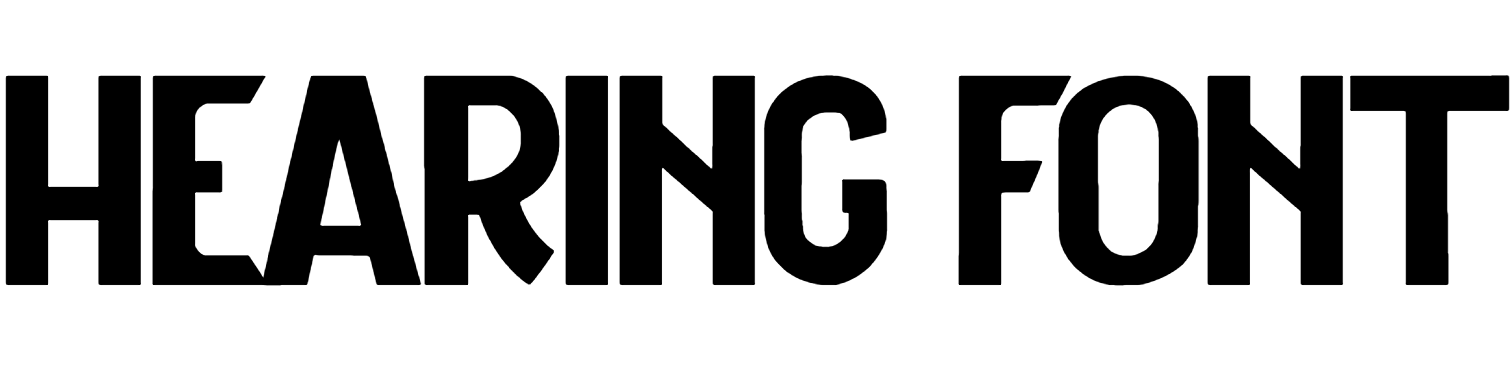
Hearing
Hearing is a sans serif font designed by Arendxstudio (2021). Simple, open letter shapes keep it easy to read at almost any size, from app buttons to big headlines. It's a free download, and you can try it with your own text in the preview above first.
- Designer: Arendxstudio
- Glyphs: 230
- Extra characters: 79 copy-and-paste alternates (Private Use Area)
What You Can Type With Hearing
Hearing covers the full alphabet in upper and lowercase, plus all ten numbers, so you can set names, dates and prices without switching fonts. Everyday marks like &, !, ? and @ are there too. Thanks to its accented letters, it also works for Spanish, French, German, Portuguese and Italian, not just English.
How to Use the Alternate Letters in Hearing
Where Hearing Works Best
Designers usually reach for fonts like Hearing when they're making websites, app screens and clean logos. It works for headings and body text alike. If the download has several weights, use a heavier one for titles and a lighter one for paragraphs.
Who designed Hearing font?
Does Hearing support accented letters?
Yes. Hearing includes the accented letters needed for Spanish, French, German, Portuguese and Italian, so it works for more than just English.